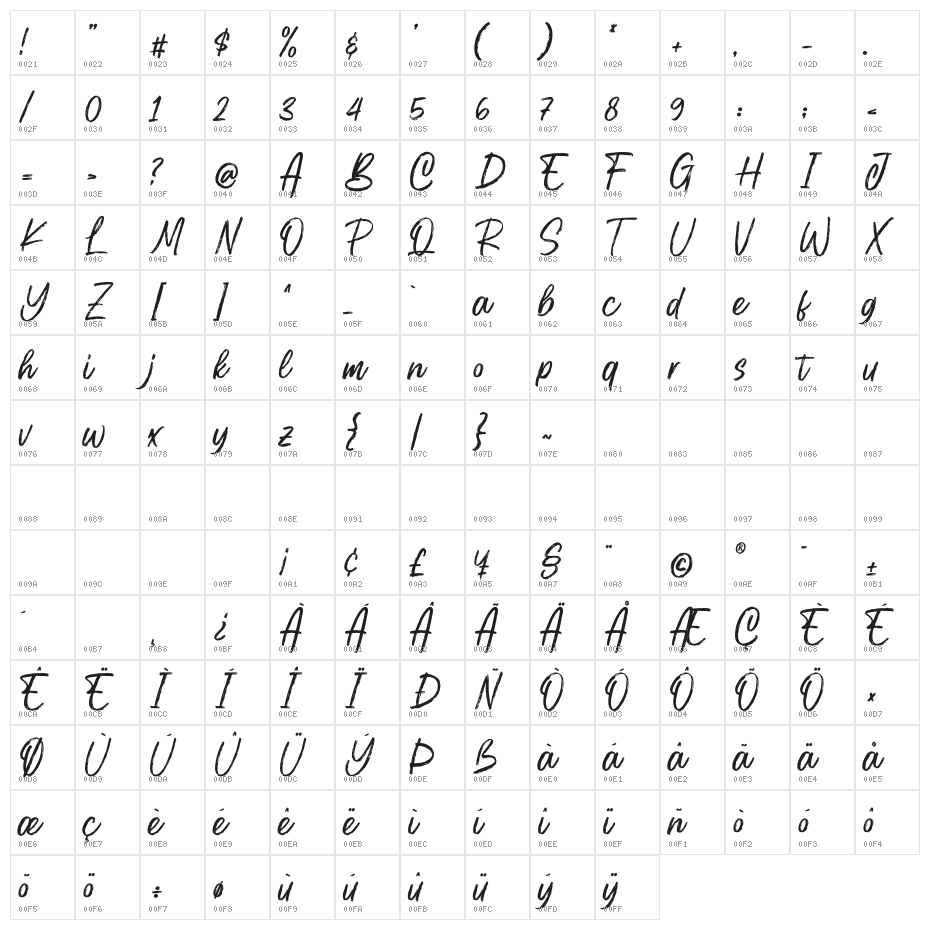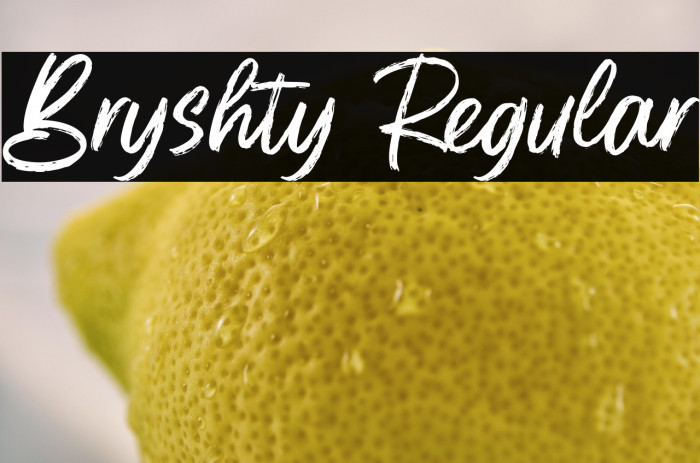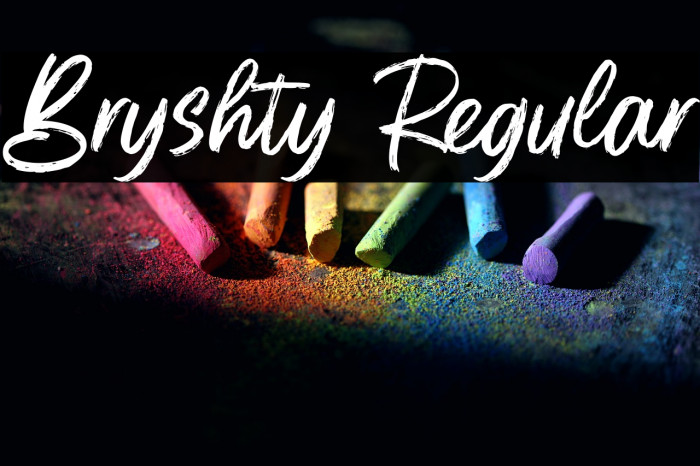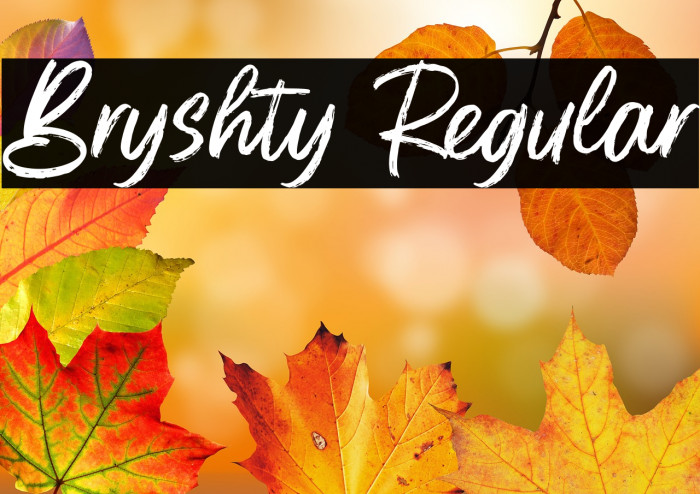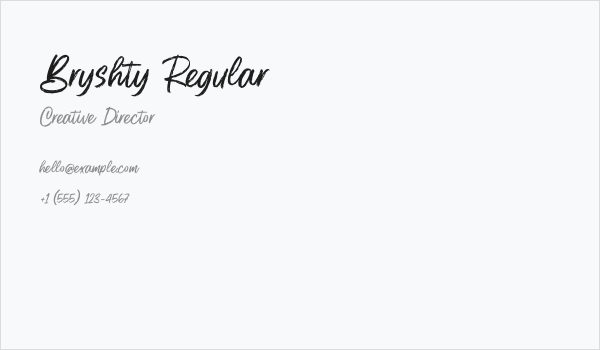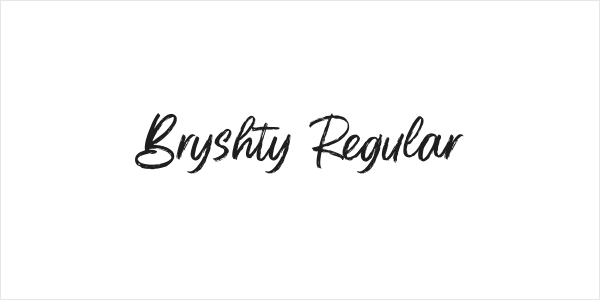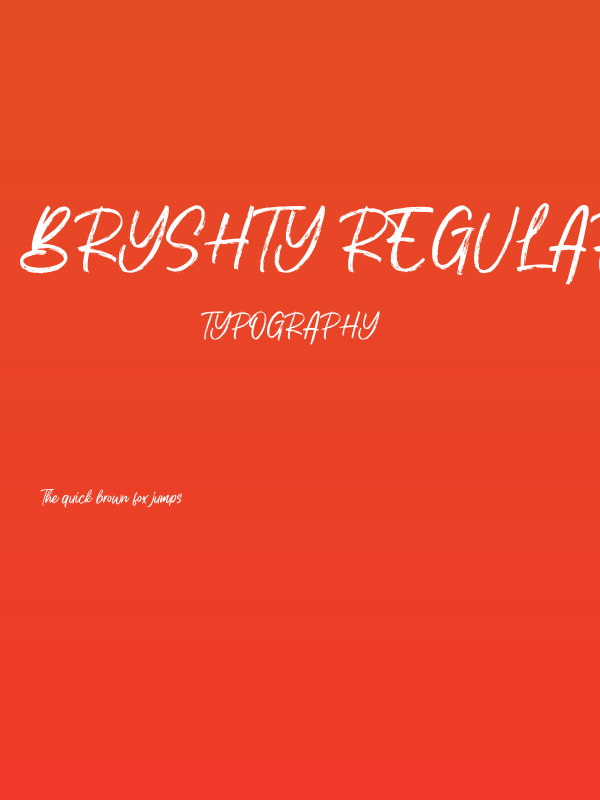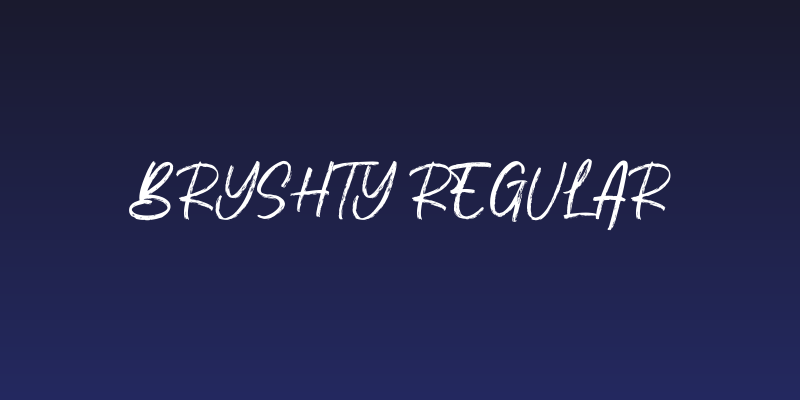
Bryshty Regular Font
Bryshty Regular Description
This font features a dynamic and energetic handwritten style, characterized by its bold and expressive strokes. The uppercase letters maintain a consistent height, while the lowercase letters exhibit a playful and fluid design, adding a sense of movement and personality. The numbers and special characters are crafted with the same lively flair, ensuring a cohesive look across all elements. The brush-like texture of the strokes gives it an artistic and informal appearance, making it ideal for projects that require a personal touch.
| Proposed Projects | Ideal for greeting cards, invitations, posters, and branding projects that require a personal and artistic touch. |